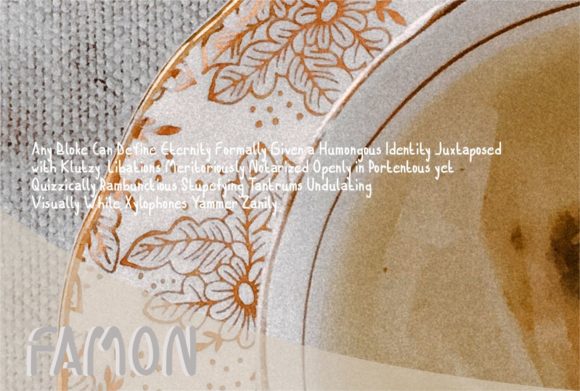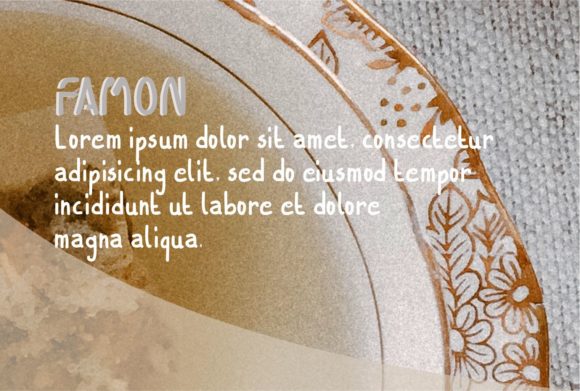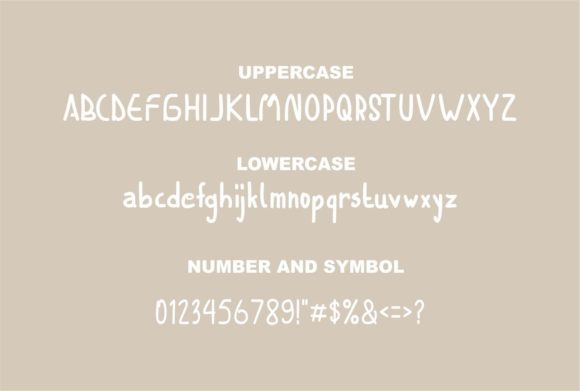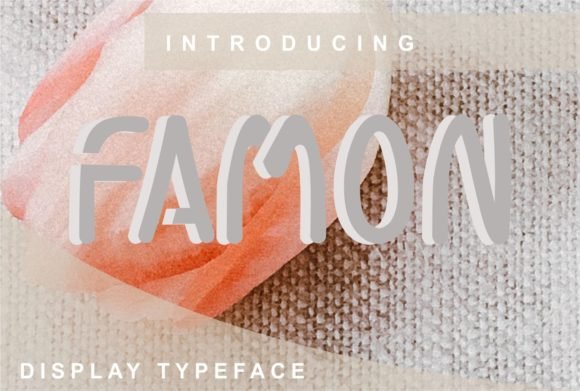
Introduction to Famon Font
Famon is a neat, modern and clean looking display font, that will truly inspire your works.
Famon Font offers exceptional quality and versatility, making it a valuable addition to your design toolkit. Whether you’re creating for personal projects or commercial use, Famon Font delivers professional results.